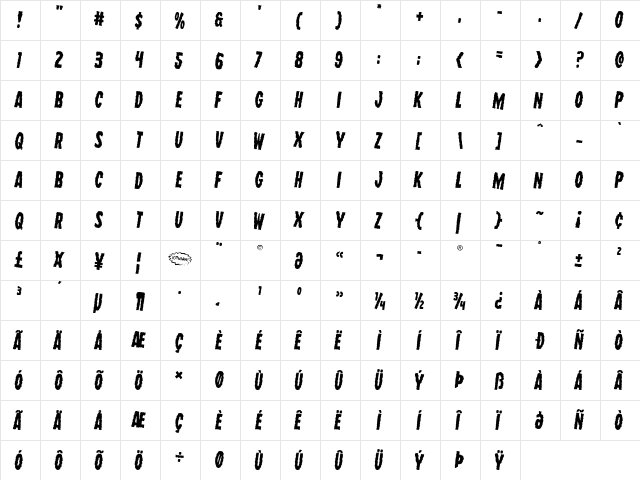
Wolf Brothers Rotated 2 Regular
Design Context for Wolf Brothers Rotated 2 Typeface
Wolf Brothers Rotated 2 is a composed and adaptable typeface that performs quietly and consistently across a wide range of design contexts.